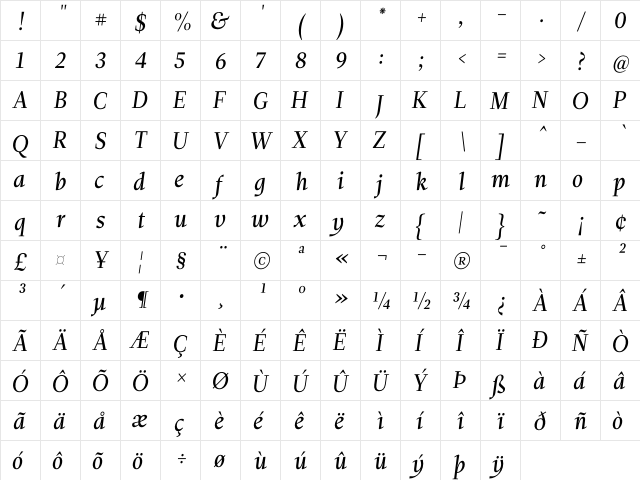
Leitura Italic 2
| Foundry | Dino dos Santos _DSType |
| Designer | Dino dos Santos |
Design Context for Leitura Typeface
Leitura offers clean, dependable letterforms without strong stylistic allegiance, making it a practical choice for designers who need flexibility. The dynamic lean of this cut emphasises speed and emphasis in any layout.
Pro Tip: Use Leitura for emphasis, pull quotes, and subheadings where its slanted energy can add rhythm to the layout.